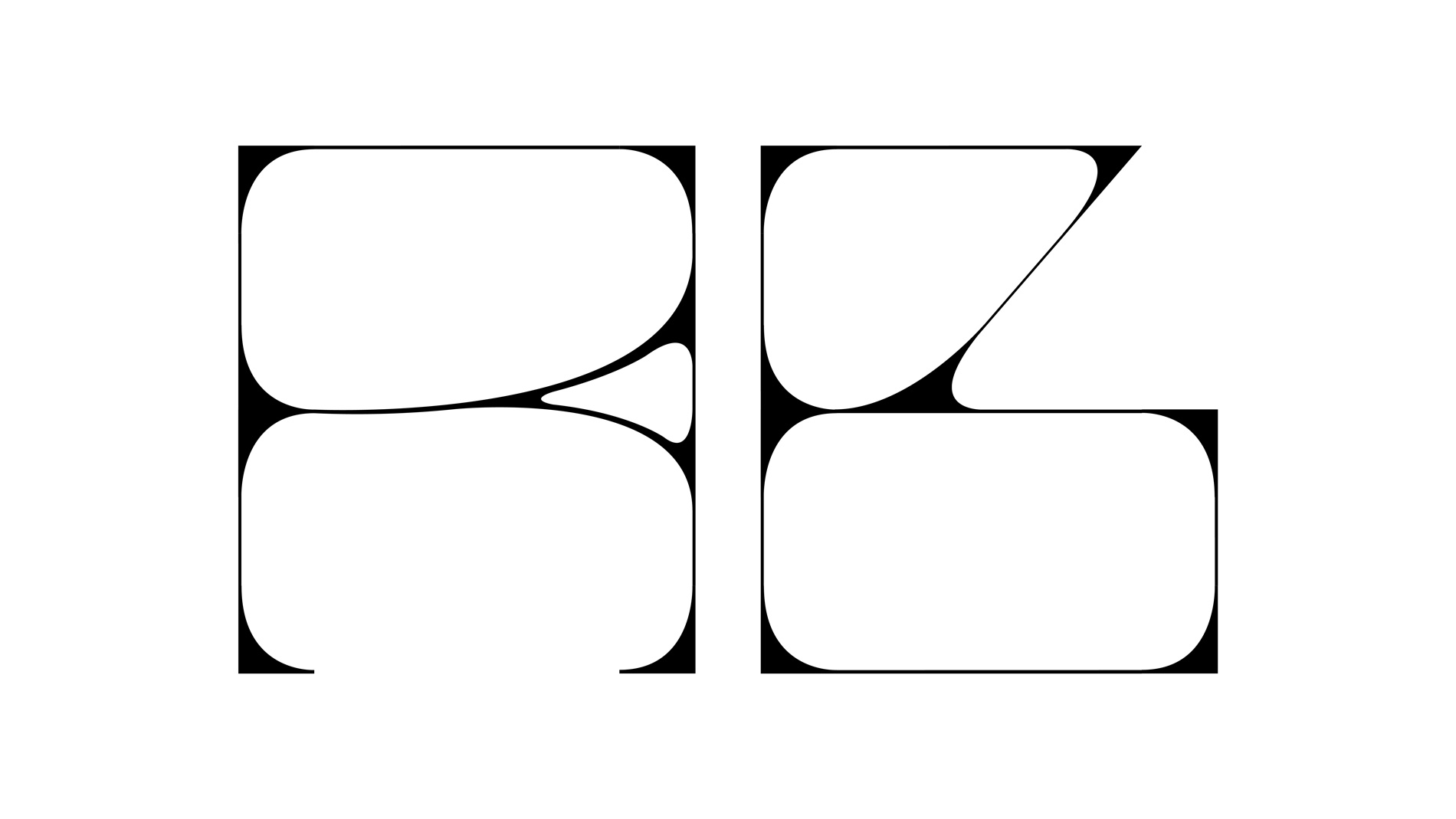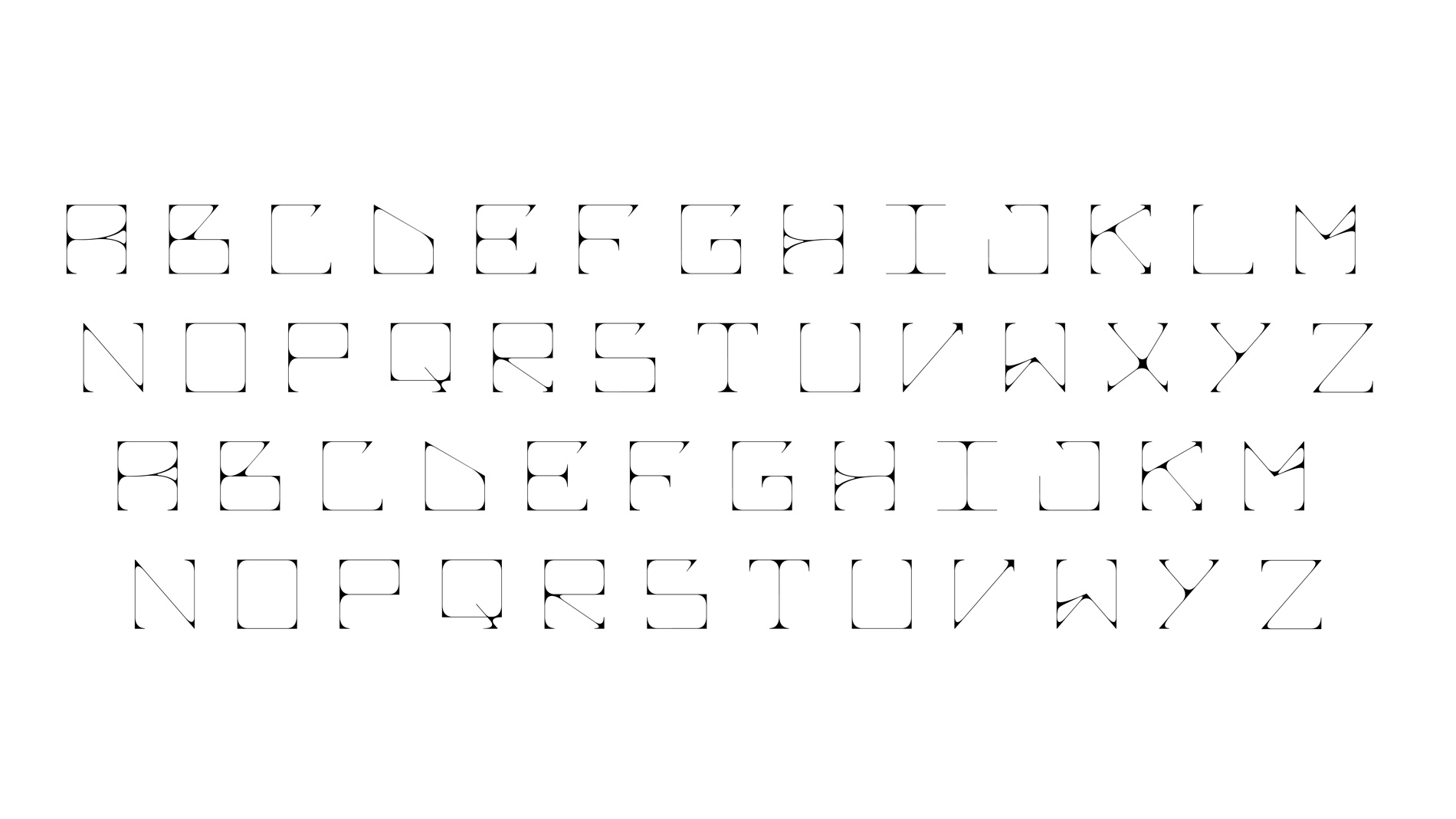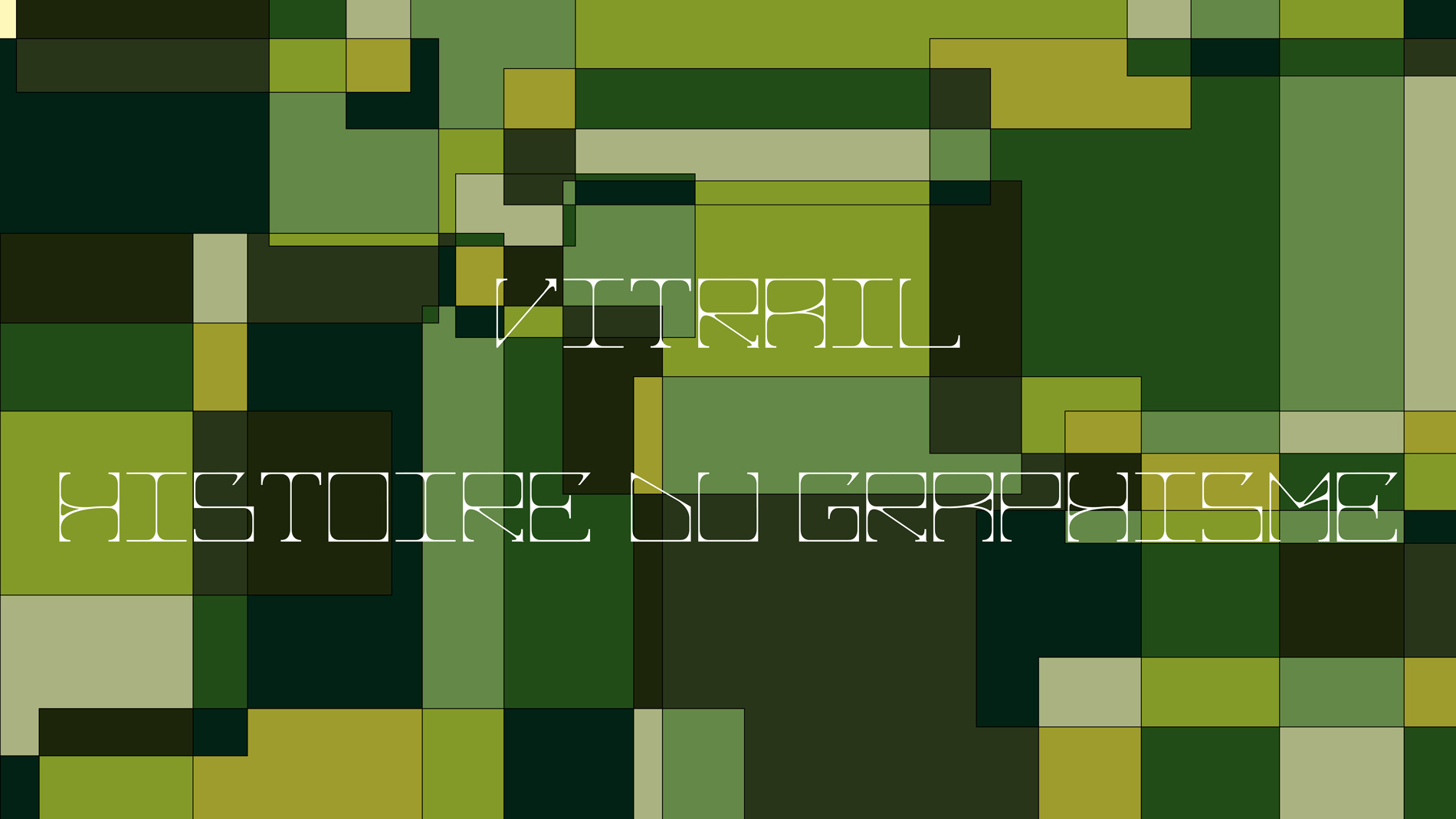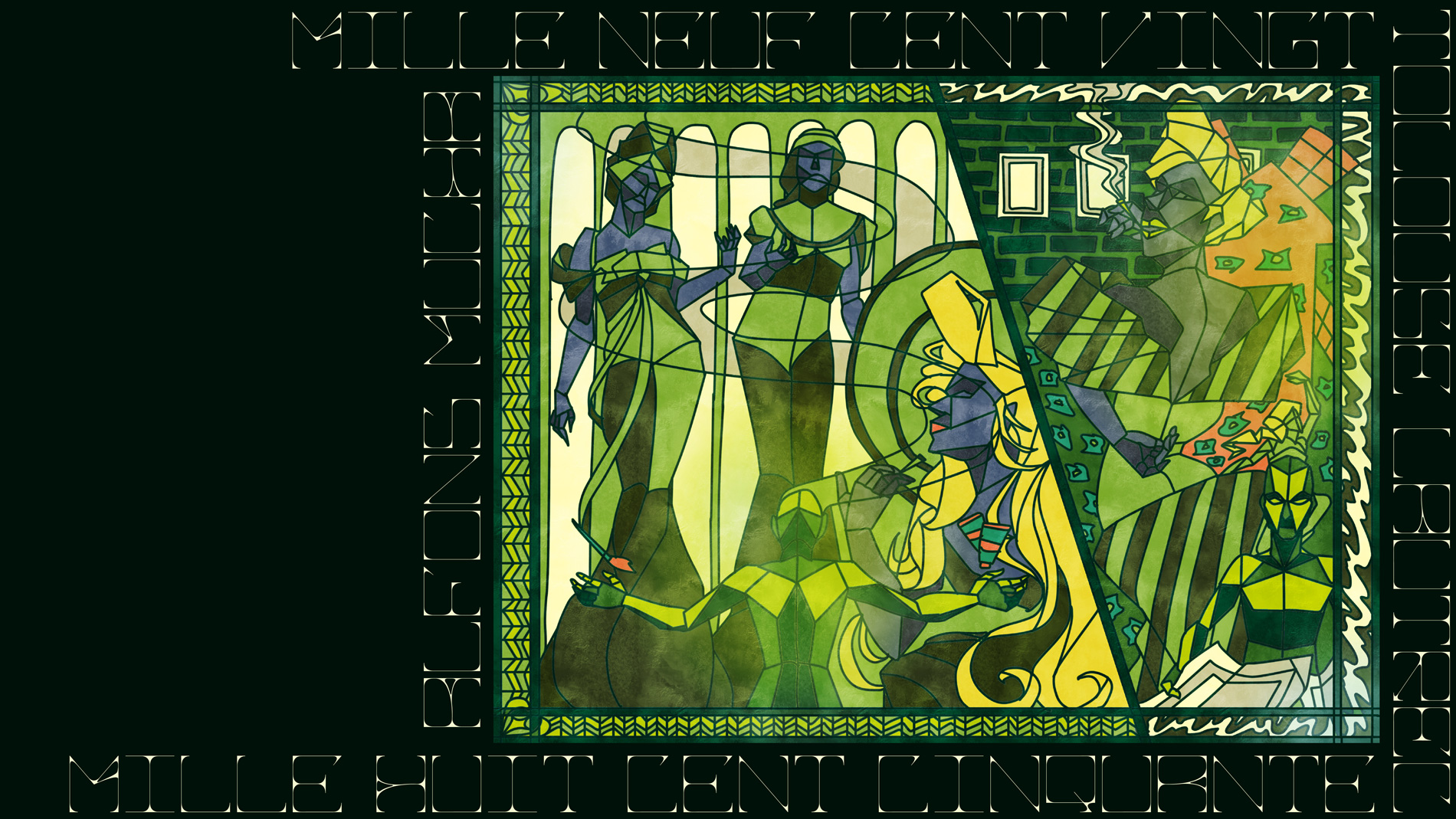
Climax Graphique - Stained glass
I created a fine geometric typeface in keeping with the illustrations of the project. Each letter was designed to have the shape of a stained glass window, balance out the image.